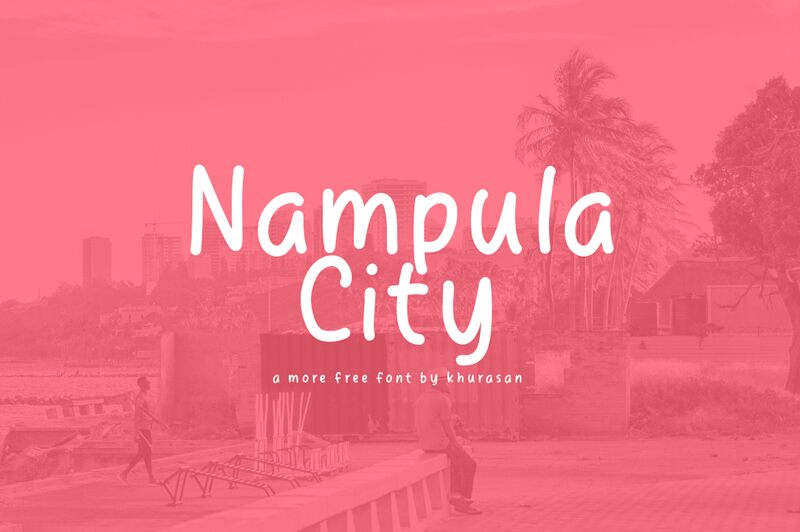
Nampula City
Nampula City, a charming handwritten font by Khurasan, exudes an elegant yet playful vibe. With its semi-light weight, this font is perfect for projects that require a touch of sophistication and creativity.
Its flowing lines and organic feel make it suitable for wedding invitations, feminine branding materials, and fashion blogs. Nampula City adds a personal touch to any design, making it an excellent choice for greeting cards, journal covers, and inspirational quotes.
Let this whimsical font bring your projects to life with its unique character and effortless charm.